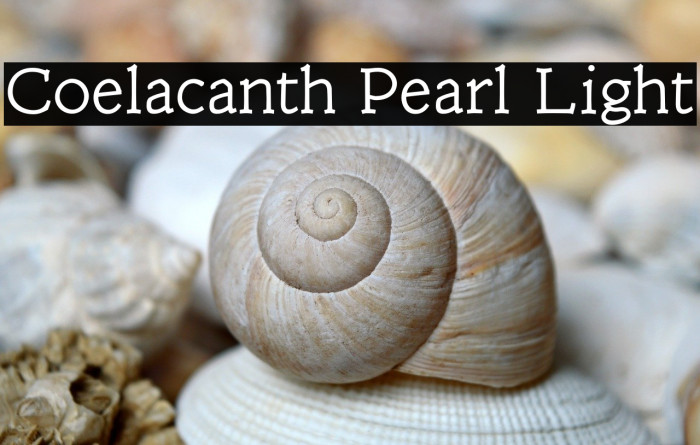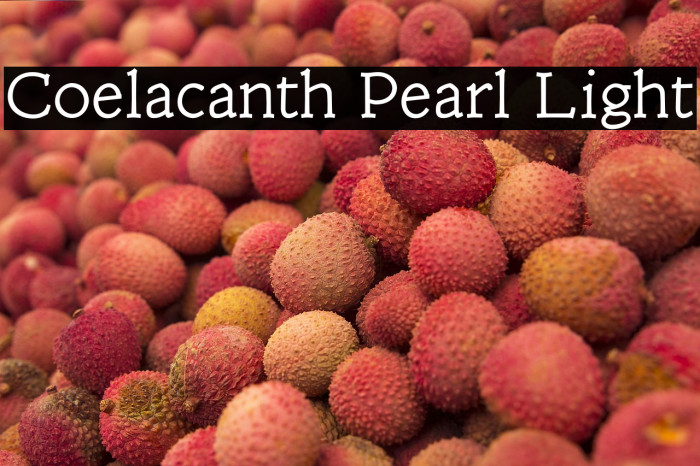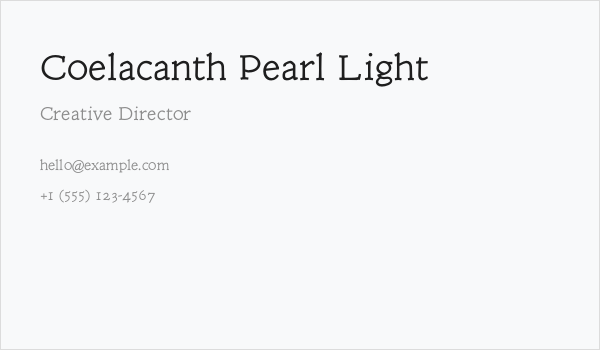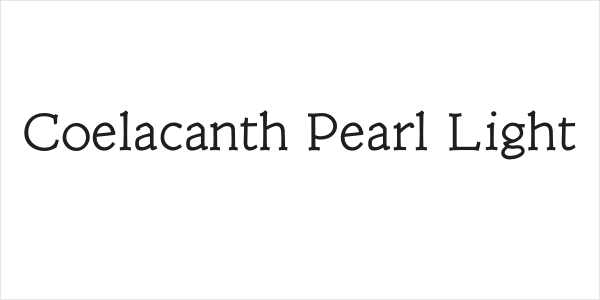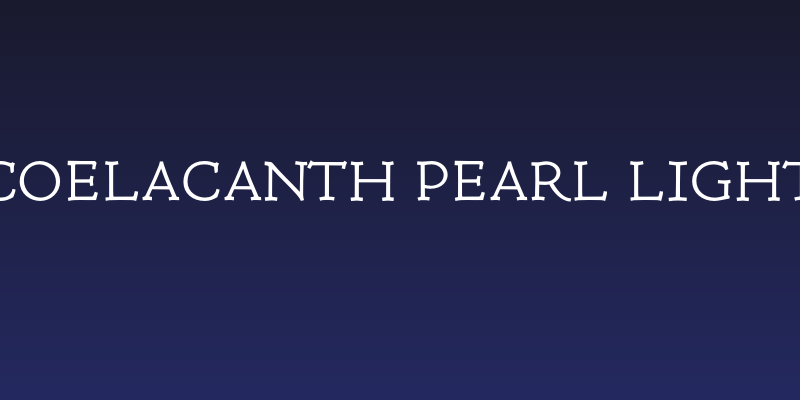
Coelacanth Pearl Light Font
Coelacanth Pearl Light Description
This font features a classic serif style with a touch of elegance and sophistication. The characters are well-defined with slightly flared serifs, giving it a traditional yet modern appearance. The uppercase letters are bold and commanding, while the lowercase letters maintain a consistent flow with a slightly narrower structure. The numerals are clear and distinct, making them easily readable. Special characters are well-integrated, maintaining the overall aesthetic of the font. The design is versatile, suitable for a variety of applications where readability and style are paramount.
| Proposed Projects | Ideal for book covers, editorial design, formal invitations, and branding projects. |